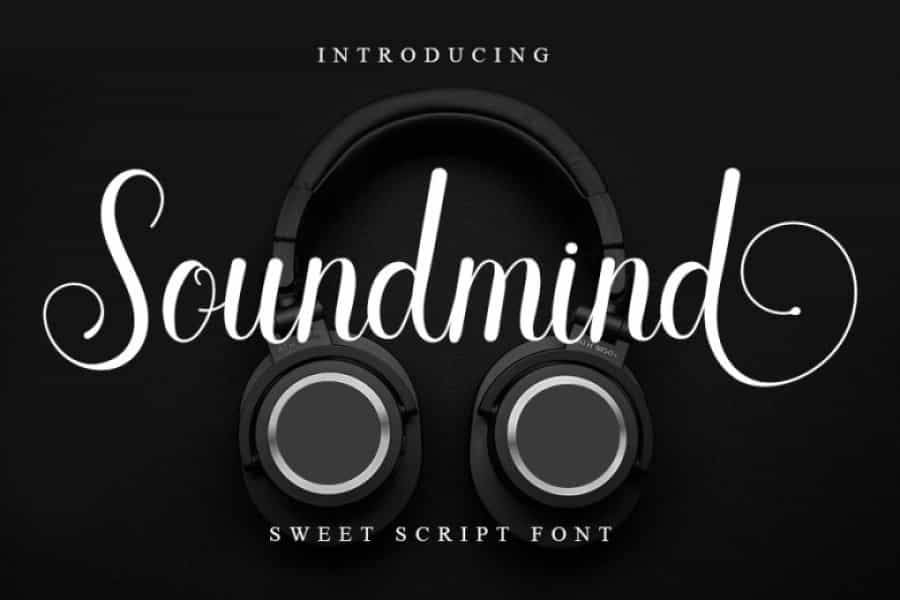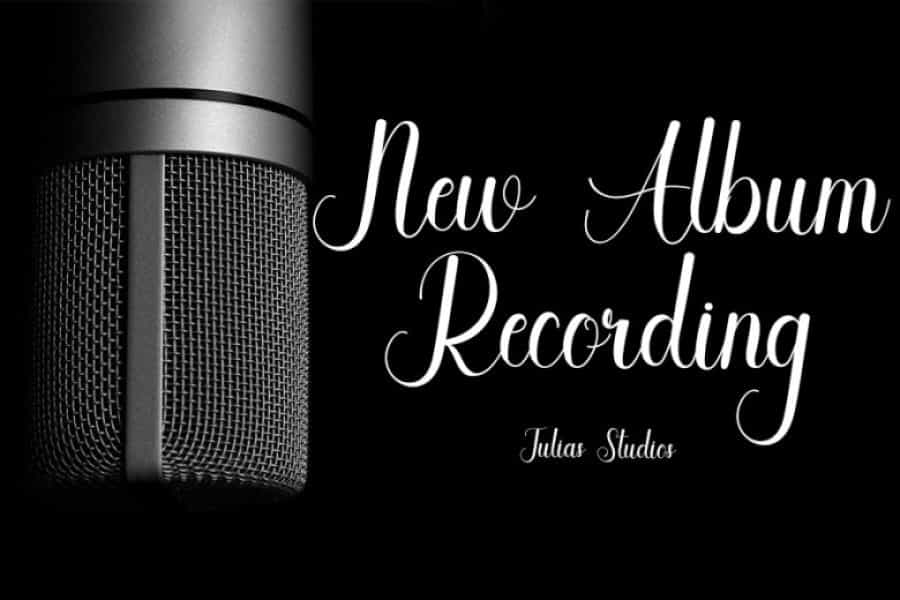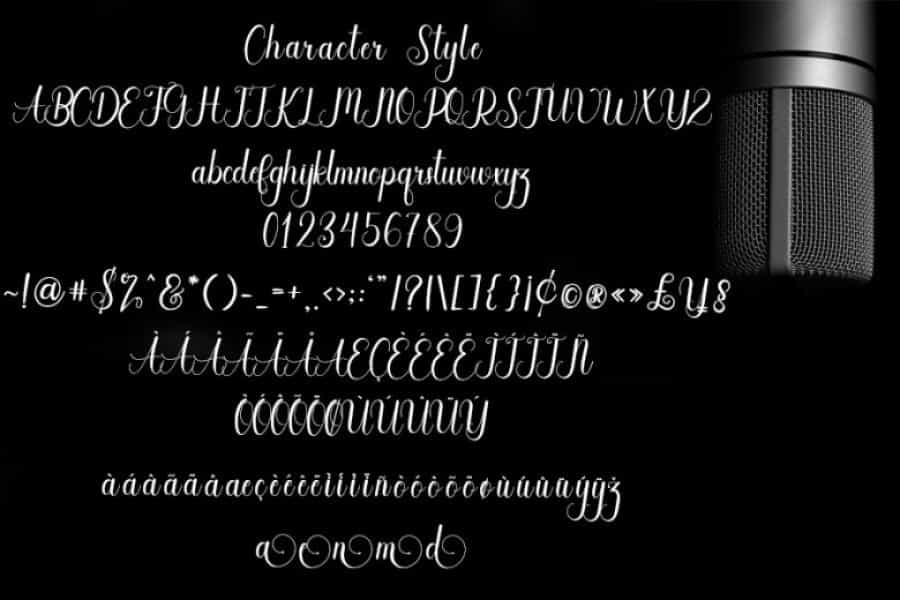
Soundmind is an elegant calligraphic font created by a master and designed to become a classic among its users. While still modern and contemporary in appearance, Soundmind preserves its elegant calligraphic style and maintains its elegant calligraphic features.